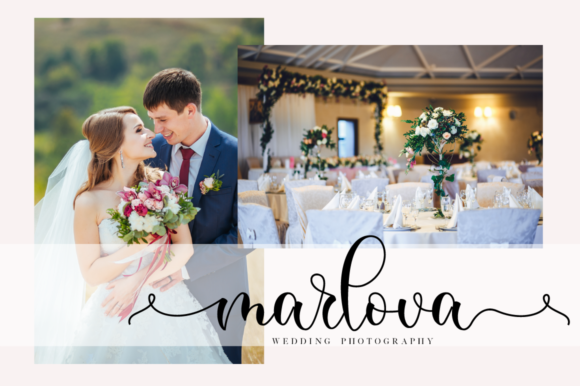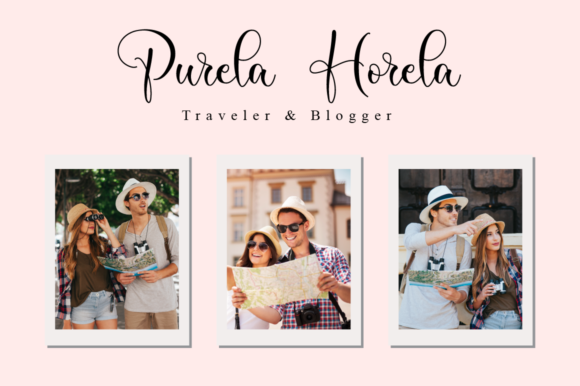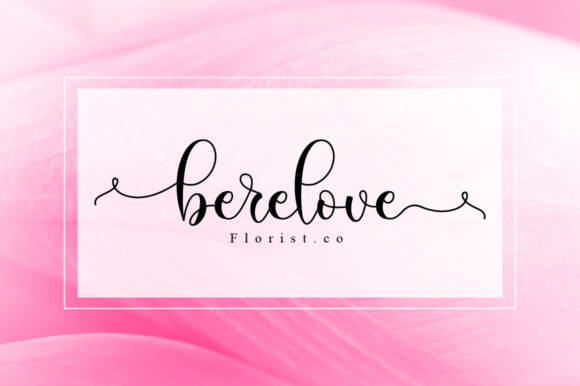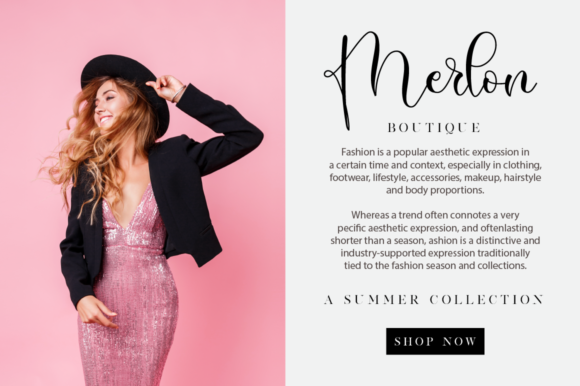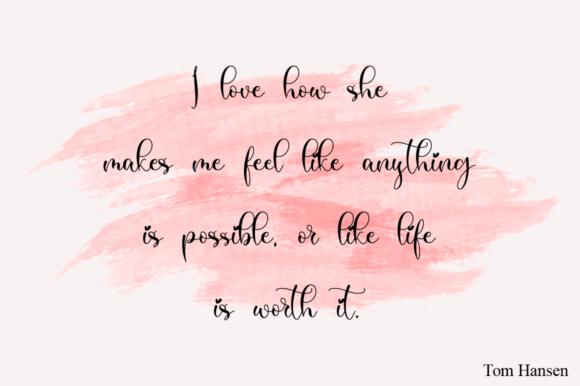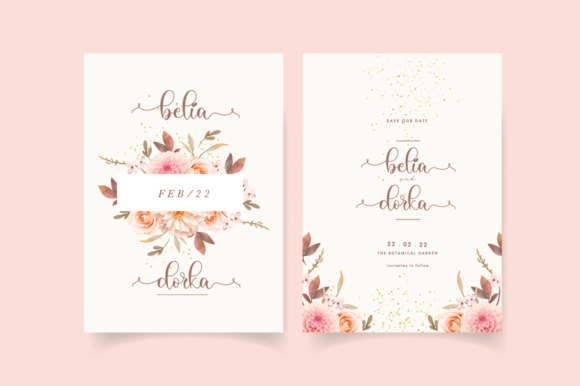
Couple Goals Font: The Ultimate Romantic Script for Designers and Crafters
Are you looking for a font that exudes love, elegance, and sophistication? Look no further than the Couple Goals Font, a beautiful script that is sure to add a touch of romance to any design project. In this article, we’ll take a closer look at this stunning font, its features, and how you can use it to create enchanting designs that will leave a lasting impression.
What is Couple Goals Font?
Couple Goals Font is an elegant and sweet script that is designed to capture the essence of love and romance. With its flowing curves and delicate strokes, this font is perfect for creating beautiful designs that convey a sense of warmth and intimacy. Whether you’re a designer, crafter, or DIY enthusiast, Couple Goals Font is an excellent choice for adding a touch of sophistication to your projects.
Key Features of Couple Goals Font
- Elegant and Sweet Script: Couple Goals Font features a beautiful, handwritten script that is both elegant and sweet.
- Romantic Spark: This font is designed to add a touch of romance to any design project, making it perfect for Valentine’s Day, anniversaries, weddings, and other special occasions.
- PUA Encoded: Couple Goals Font is PUA (Private Use Area) encoded, which means you can access all the glyphs and swashes with ease.
How to Use Couple Goals Font
Couple Goals Font is versatile and can be used for a variety of design projects, including:
- Wedding Invitations: Create beautiful wedding invitations, save-the-date cards, and thank-you notes with Couple Goals Font.
- Valentine’s Day Cards: Design romantic Valentine’s Day cards, gift tags, and decorations with this stunning font.
- Branding and Packaging: Use Couple Goals Font to create elegant branding and packaging designs for your business or product.
- DIY Crafts: Add a touch of romance to your DIY crafts, such as scrapbooking, journaling, and card-making.
Tips and Tricks for Using Couple Goals Font
Here are some tips and tricks to help you get the most out of Couple Goals Font:
- Pair it with Other Fonts: Combine Couple Goals Font with other fonts to create a unique and interesting design.
- Use Swashes and Glyphs: Take advantage of the PUA encoding and use the swashes and glyphs to add a touch of elegance to your design.
Couple Goals Font is a beautiful and elegant script that is perfect for designers and crafters who want to add a touch of romance to their design projects. With its PUA encoding, ease of use, and versatility, this font is sure to become a favorite in your design arsenal. Whether you’re creating wedding invitations, Valentine’s Day cards, or branding designs, Couple Goals Font is the perfect choice. So why wait? Get creative with Couple Goals Font today and add a touch of magic to your designs!